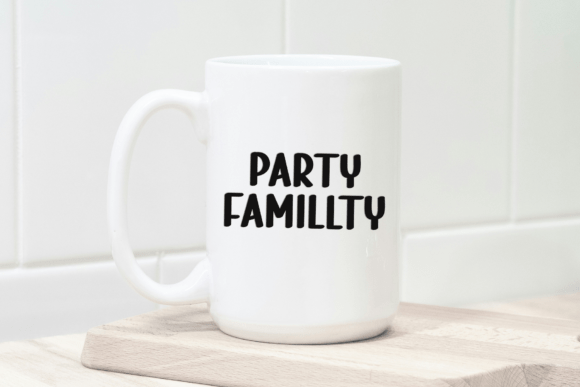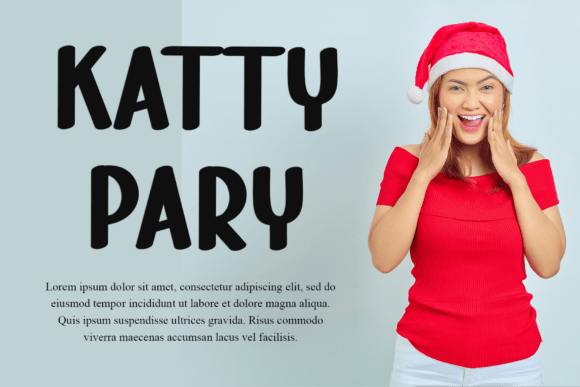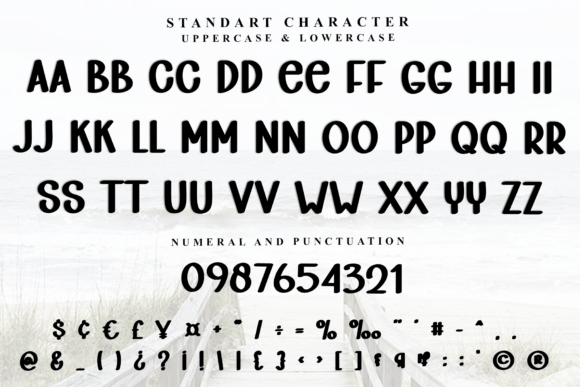
Introduction to Daily Action Font
Daily Action is a beautiful and eye-catching font designed with a soft, unique touch.
Its distinctive strokes give it a special character, making it meaningful and versatile for future use With various characters, it’s perfect for design projects, crafts, and other creative works.